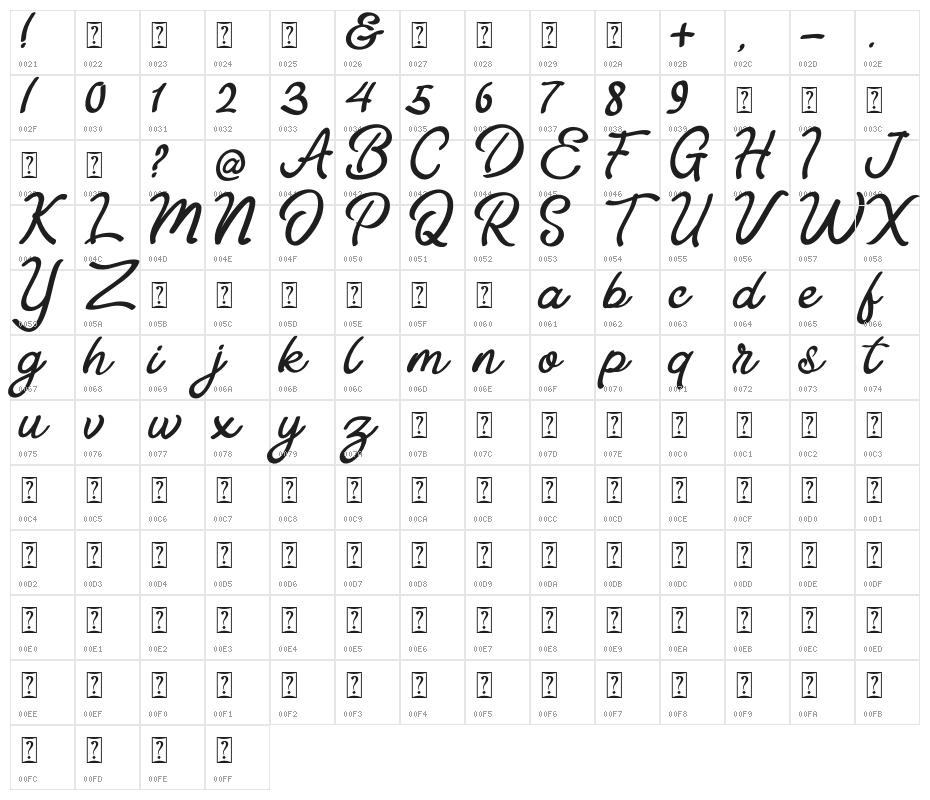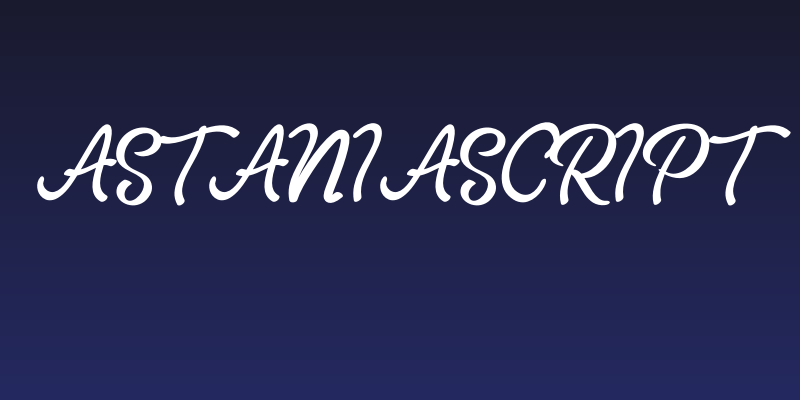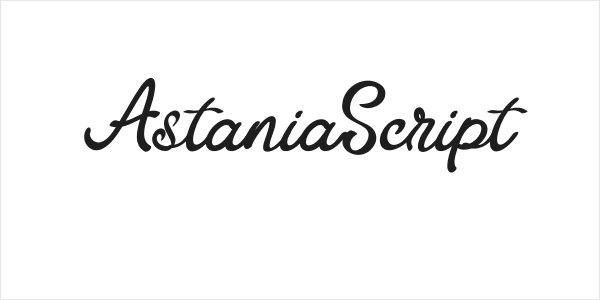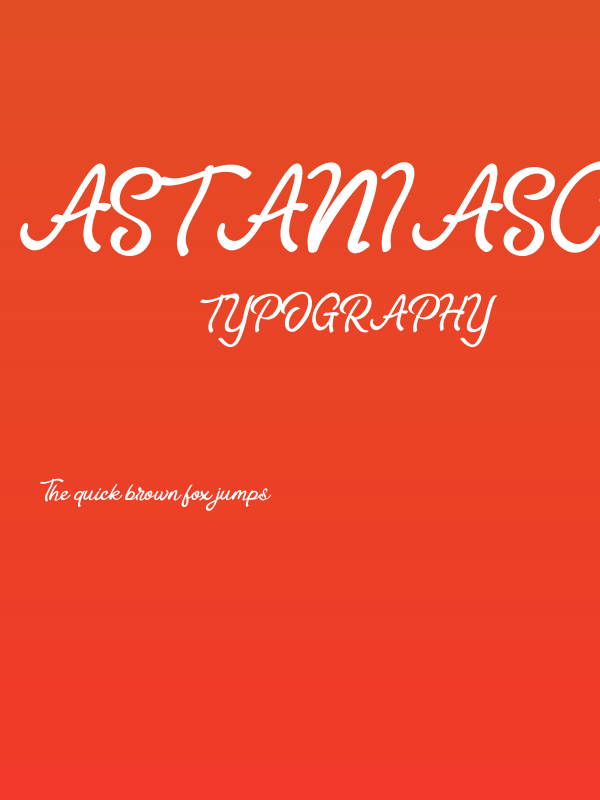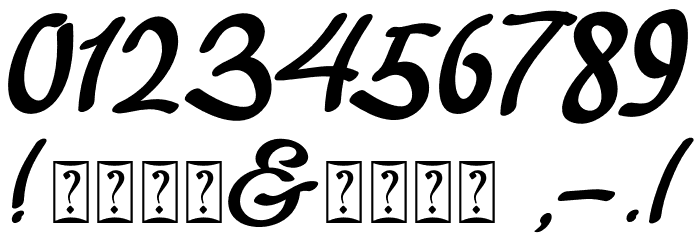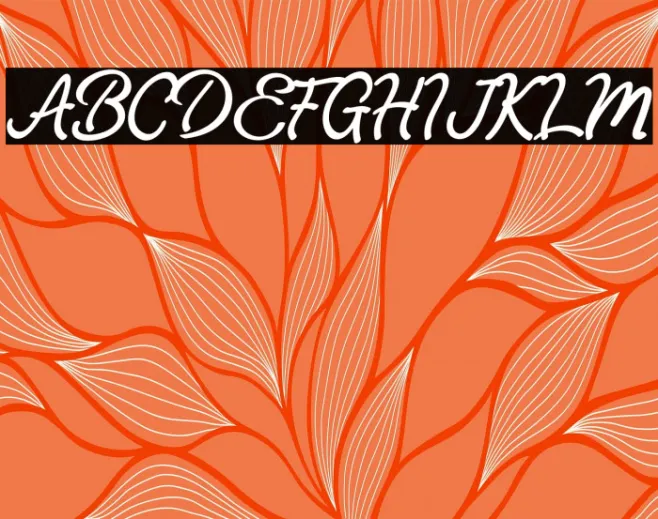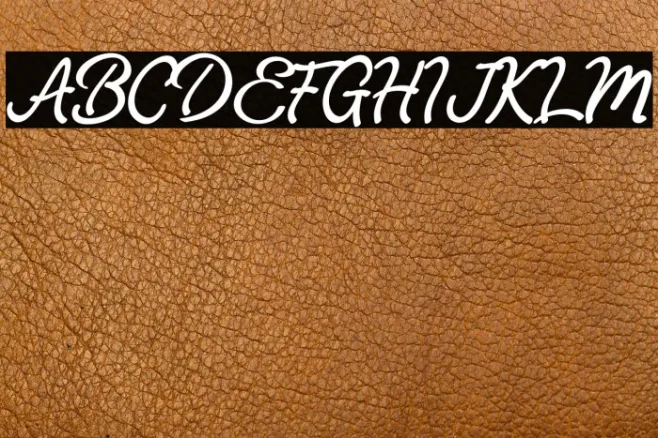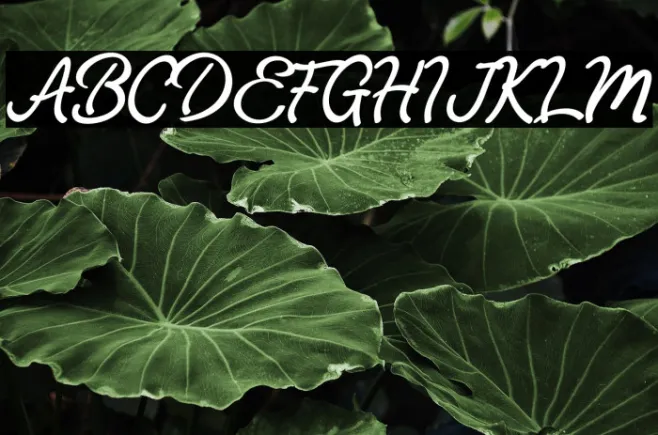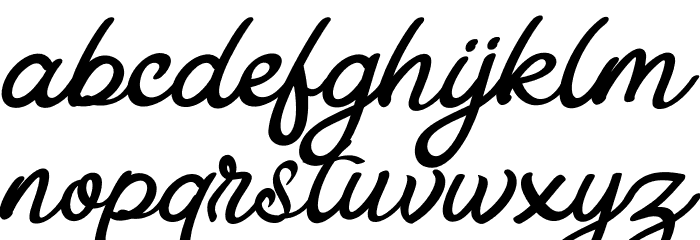
AstaniaScript Font
AstaniaScript Description
This font exudes a lively and elegant script style, characterized by its fluid, cursive strokes that mimic the natural flow of handwriting. The uppercase letters are bold and prominent, while the lowercase letters maintain a consistent rhythm, enhancing readability. The numerals are well-integrated into the script style, offering a cohesive look across all characters. Special characters like the ampersand and exclamation mark are crafted with the same attention to detail, ensuring they blend seamlessly with the overall design. The font's playful yet sophisticated appearance makes it versatile for various design applications.